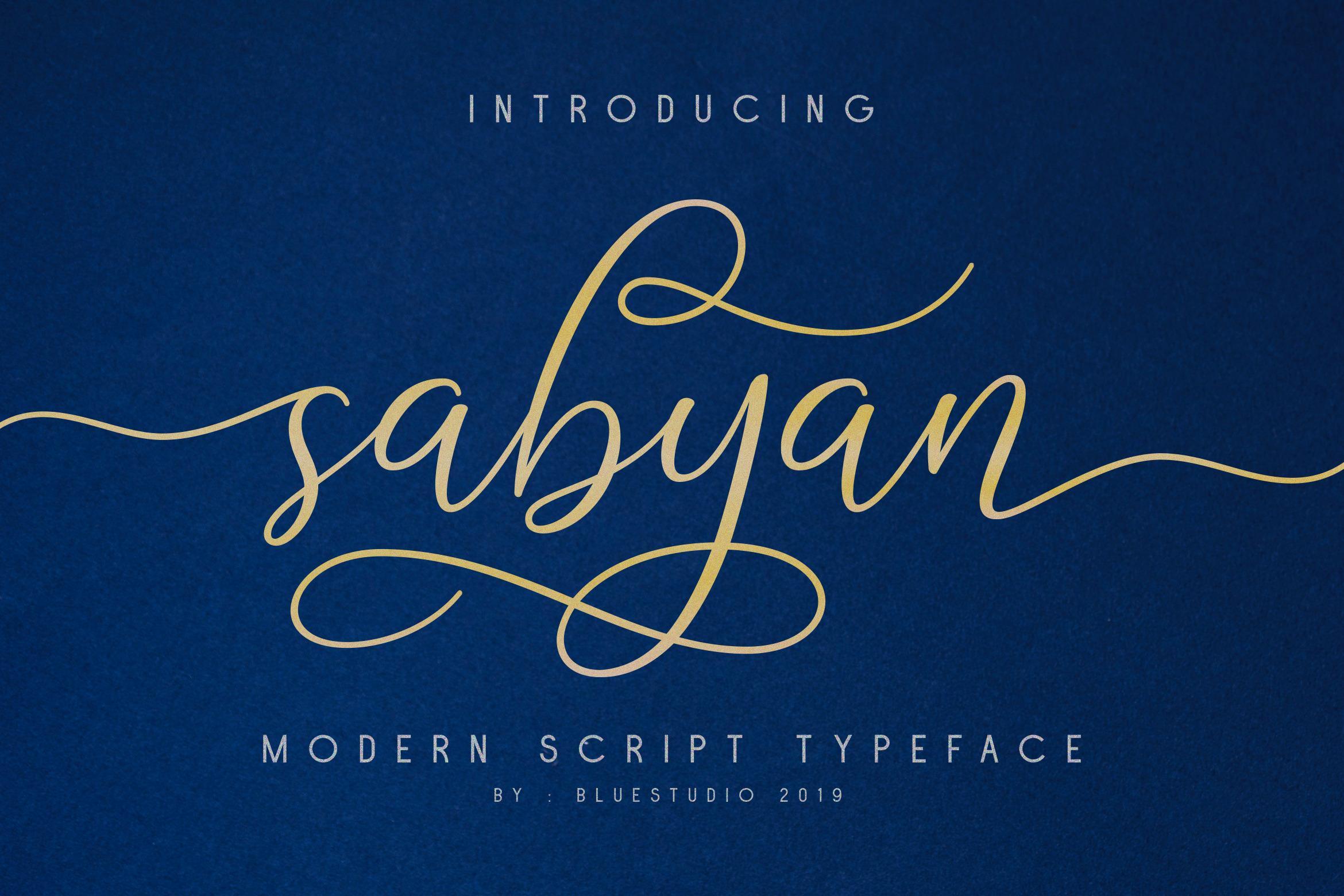
Sabyan // Modern Script Typeface
Introducing our newest product Sabyan.
Sabyan is a modern and clean handwriting script font.
Sabyan is suitable for all your design project needs such as: logo design, branding, covers, posters, magazines, wedding invitations, greeting cards, quotes and more.
Titling, swash, Stylistic Alternate, Stylistic Alternate Set 01,02,0,0,0,0,05